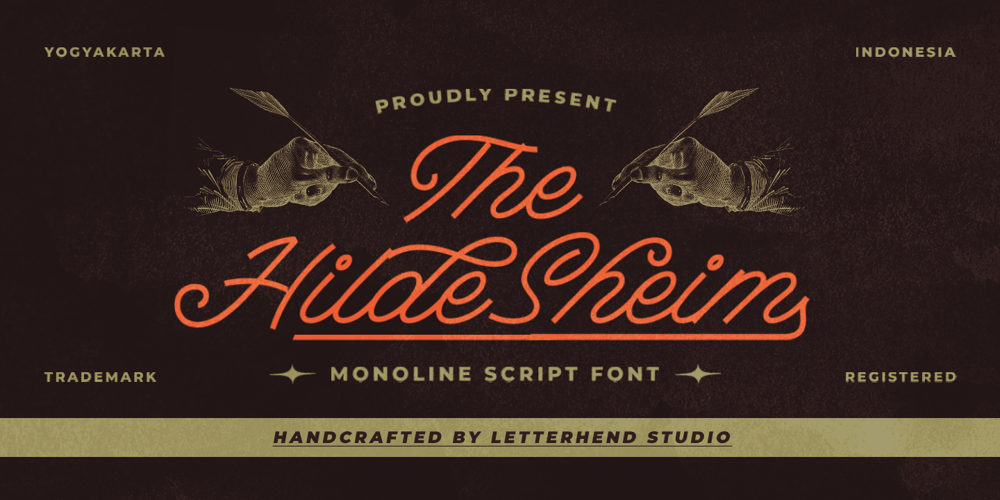
Hildesheim Font Family was designed by Hendry Juanda and published by Letterhend. Hildesheim contains 1 styles and family package options. The Hildesheim is a monoline script with a casual and classic theme. This type of font perfectly made to be applied especially in logo, headline, signage and the other various formal forms such as invitations, labels, logos, magazines, books, greeting / wedding cards, packaging, fashion, make up, stationery, novels, labels or any type of advertising purpose.Features : Uppercase & lowercase Numbers and punctuation Alternates & Ligatures Multilingual Support PUA encoded